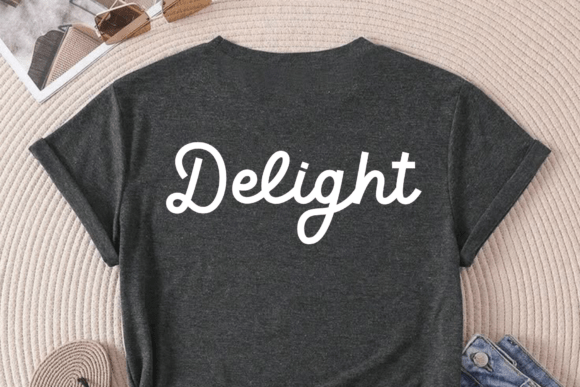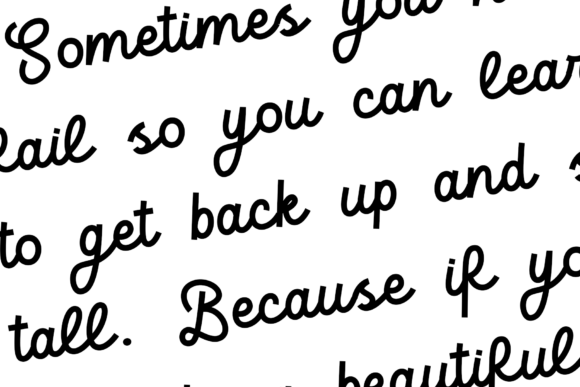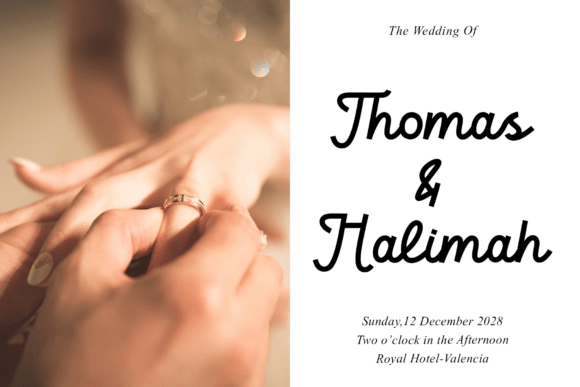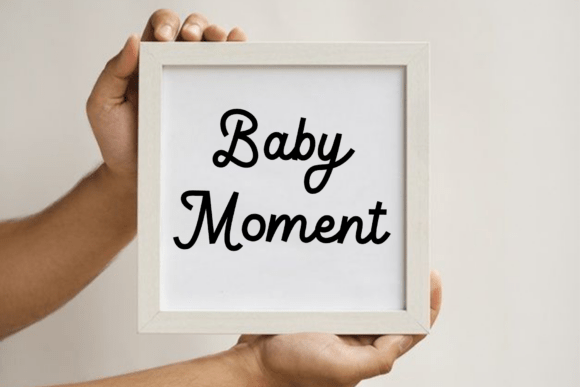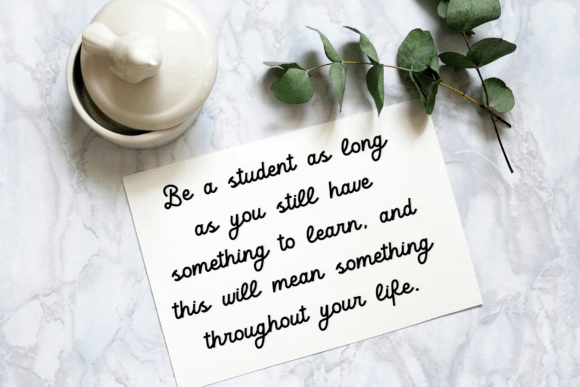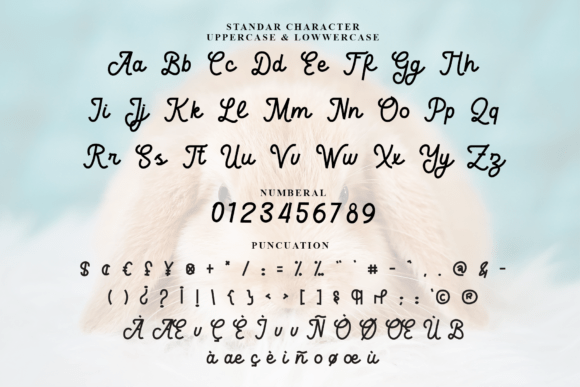
Easter Bunny Font: A Fun and Festive Script Font for Your Next Creative Project
Are you looking for a font that captures the joyful spirit of the spring season? Look no further than the Easter Bunny Font, a new script font designed to bring a “bouncy” and approachable energy to your designs. With its thick, rounded strokes and charmingly irregular baseline, this font is perfect for creating fun and festive designs that feel warm, friendly, and full of life.
The Perfect Font for Springtime Designs
The Easter Bunny Font is specifically designed to evoke the feeling of springtime, making it ideal for designs that need to feel fresh, playful, and full of energy. Whether you’re creating Easter holiday cards, children’s brand logos, spring festival promotions, or playful nursery decor, this font is sure to bring a smile to your audience’s face.
Key Features of the Easter Bunny Font
- Thick, rounded strokes: The Easter Bunny Font features thick, rounded strokes that give it a playful and whimsical feel.
- Charmingly irregular baseline: The font’s irregular baseline adds to its playful and bouncy feel, making it perfect for designs that need to feel fun and carefree.
- Warm and friendly energy: The Easter Bunny Font has a warm and friendly energy that’s perfect for designs that need to feel approachable and inviting.
Best Uses for the Easter Bunny Font
The Easter Bunny Font is a versatile font that can be used in a variety of design projects. Here are some of the best uses for this font:
- Easter holiday cards: The Easter Bunny Font is perfect for creating Easter holiday cards that feel fun, festive, and full of life.
- Children’s brand logos: This font is ideal for children’s brand logos that need to feel playful, friendly, and approachable.
- Spring festival promotions: The Easter Bunny Font is perfect for promoting spring festivals, fairs, and other events that need to feel fun and festive.
- Playful nursery decor: This font is also great for creating playful nursery decor, such as wall art, signs, and other decorative items.
Tips for Using the Easter Bunny Font
Here are some tips for using the Easter Bunny Font in your designs:
- Use it with bright colors: The Easter Bunny Font looks best with bright, bold colors that match its playful and festive energy.
- Pair it with simple graphics: This font pairs well with simple graphics, such as eggs, flowers, and other springtime-themed illustrations.
- Experiment with different sizes: The Easter Bunny Font looks great in a variety of sizes, from small and delicate to large and bold.
The Easter Bunny Font is a fun and festive script font that’s perfect for designers and crafters who want to add a touch of springtime magic to their designs. With its thick, rounded strokes and charmingly irregular baseline, this font is sure to bring a smile to your audience’s face. Whether you’re creating Easter holiday cards, children’s brand logos, spring festival promotions, or playful nursery decor, the Easter Bunny Font is the perfect choice.